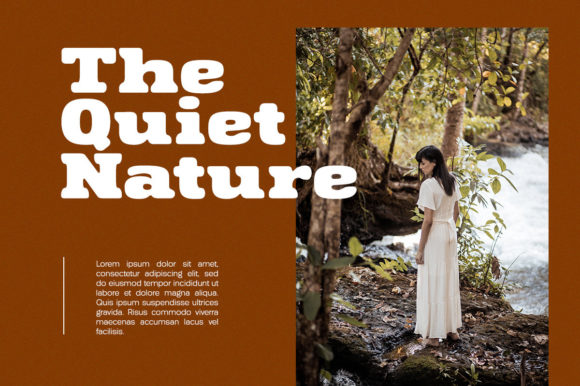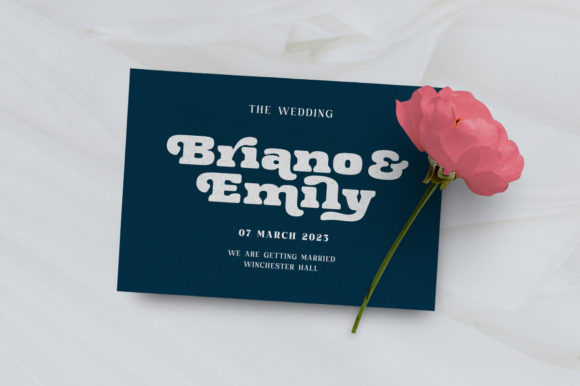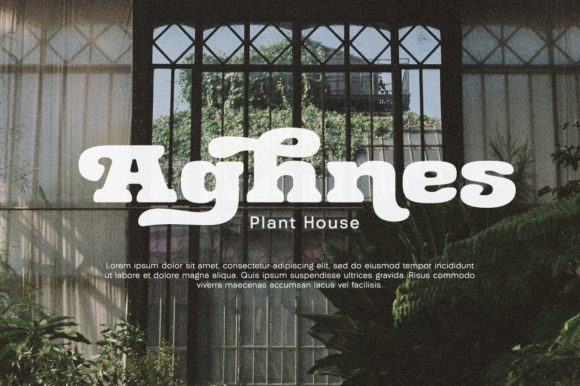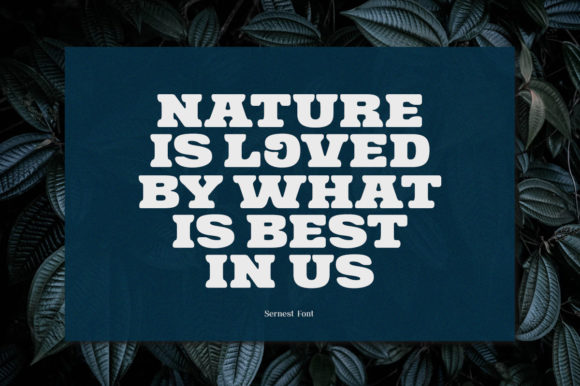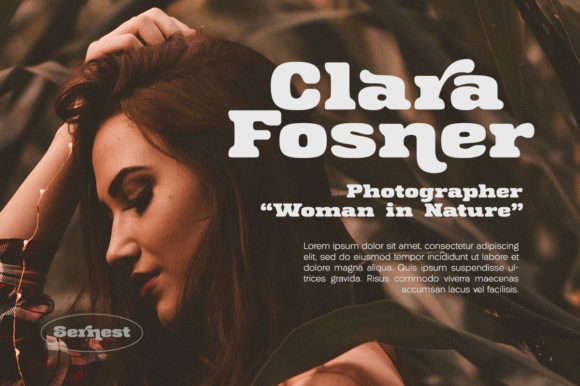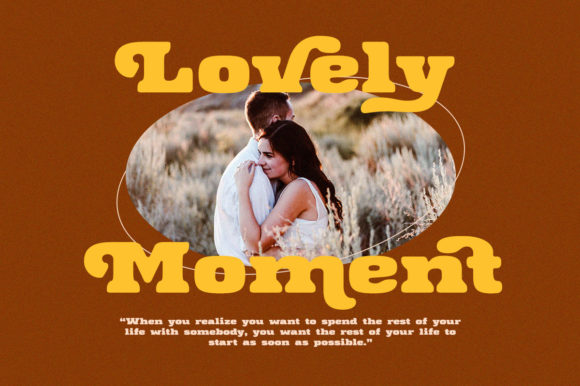
Introduction to Sernest Display Font
Have you ever stared at a blank page, waiting for the perfect font to bring your creative project to life? It’s a moment we’ve all been there – the thrill of the blank canvas, the pressure to create something truly unique. And then, it happens – the font you’ve been searching for finally appears, and your design takes off in a whole new direction. For many designers, that font is the Sernest Display Font, a high-quality, bold display font that exudes a touch of vintage charm.
With its transparent background and striking visual impact, the Sernest Display Font is the perfect design resource for any creative project. Whether you’re working on a logo, magazine cover, or even a wedding invitation, this font is sure to make your design stand out from the crowd. And the best part? It’s available for free download, making it an invaluable resource for designers of all levels.
Key Features of Sernest Display Font
- High-quality design resource for creative projects, featuring elegant and modern typography.
- Includes a transparent background, making it easy to overlay on any image or design.
- Features a bold and eye-catching design, ideal for headings and titles in creative projects.
Honest Review: Sernest Display Font
I recently had the chance to experiment with the Sernest Display Font, and I must say it’s been a game-changer for my creative projects. This high-quality font is perfect for any design enthusiast looking to elevate their visuals.
One of the standout features of Sernest Display Font is its transparent background, which makes it incredibly versatile. You can easily layer it over any image or design element without worrying about distracting backgrounds.
- High-quality design with a clean, modern aesthetic
- Transparent background for seamless layering
- Perfect for creative projects requiring a touch of elegance
- May not be suitable for projects requiring a bold, condensed font
Overall, I’m thoroughly impressed with Sernest Display Font. Its simplicity and elegance make it an excellent addition to any design library, and its transparent background is a huge plus. I’d definitely recommend it to fellow designers looking for a reliable, high-quality font.
Sernest Display Font is a high-quality font perfect for creative projects that require a unique touch. This font features a transparent background, making it an ideal design resource for graphic designers and artists.